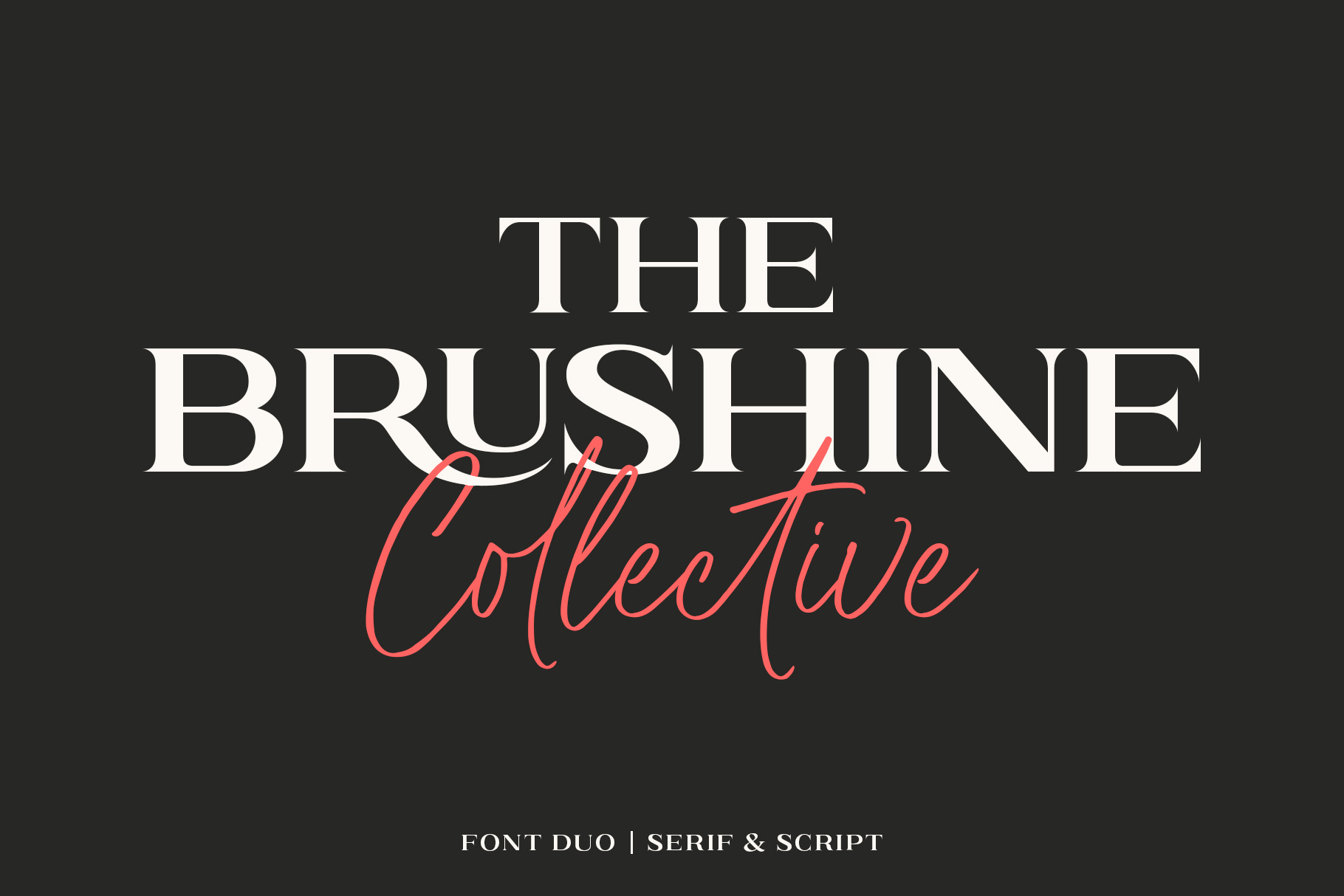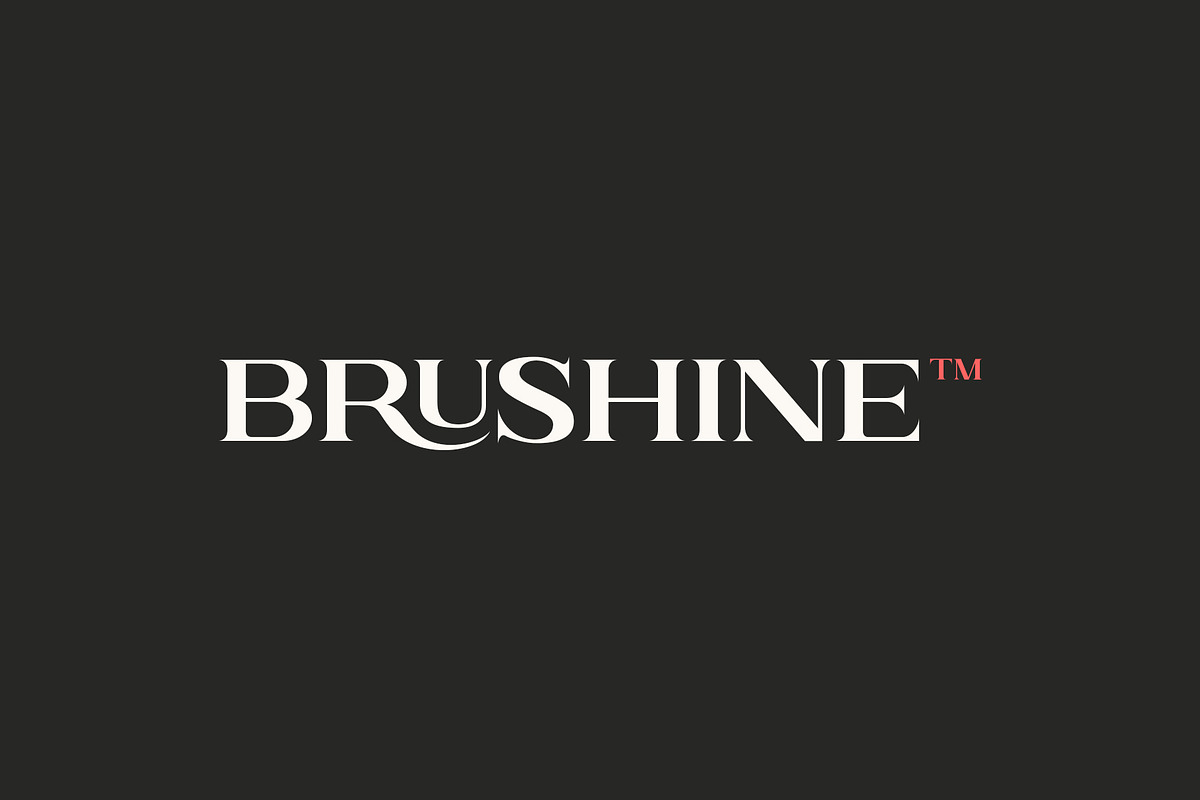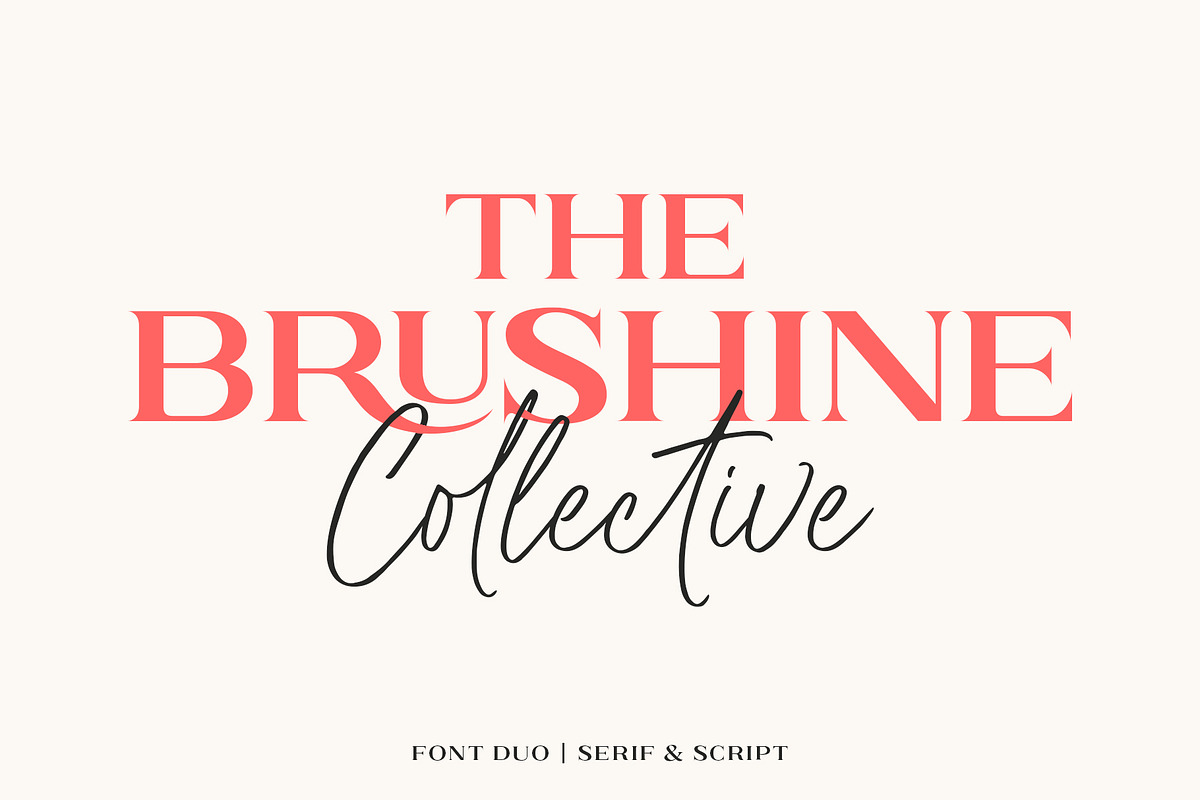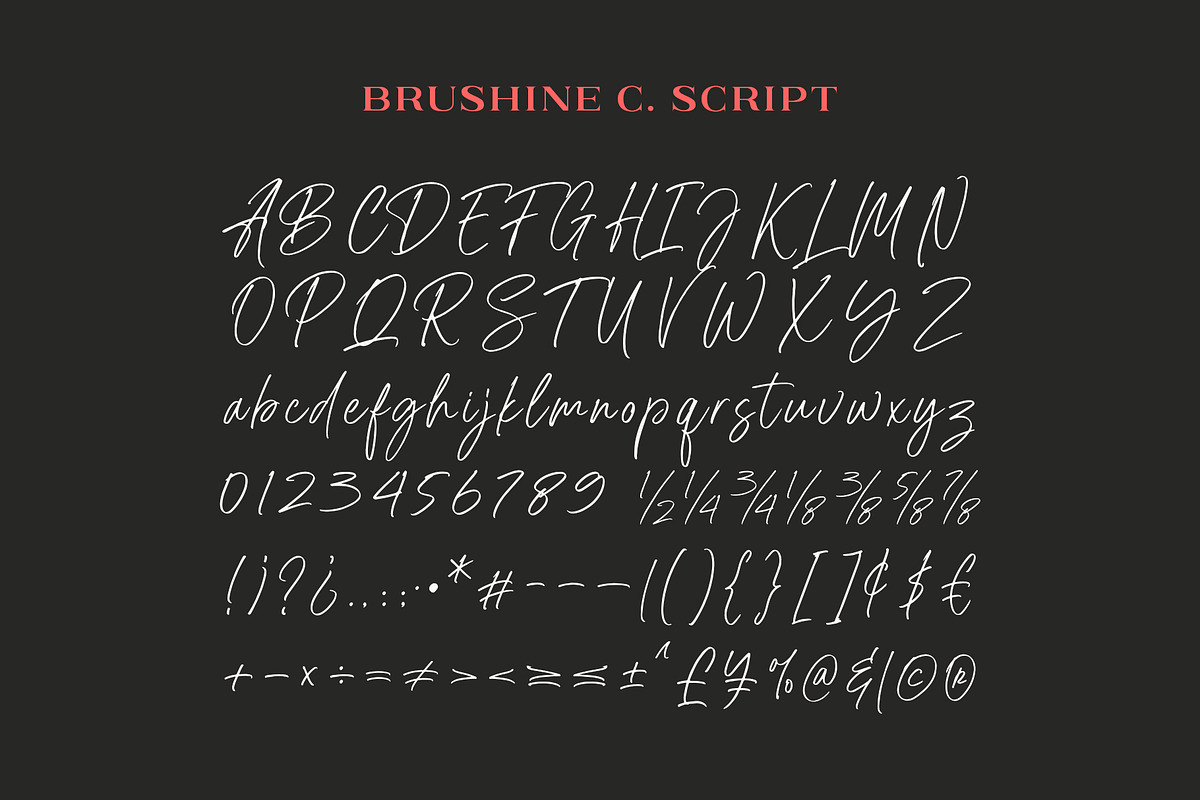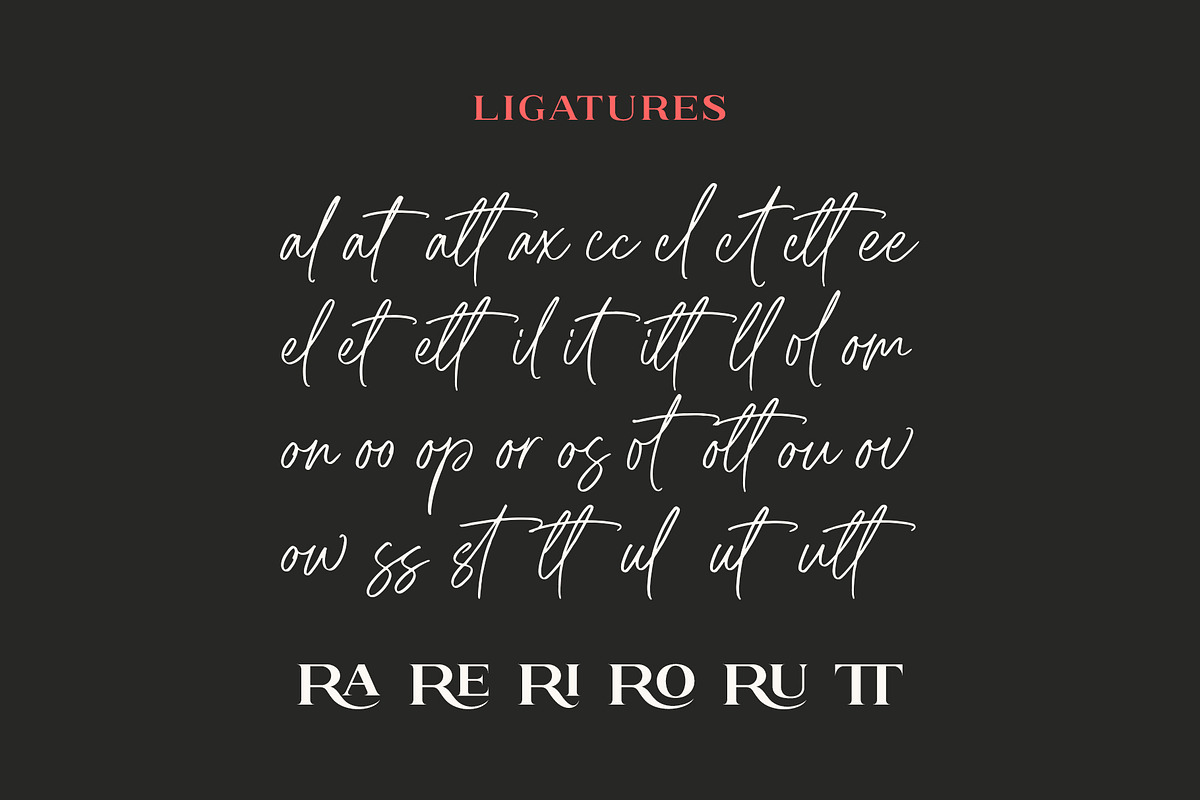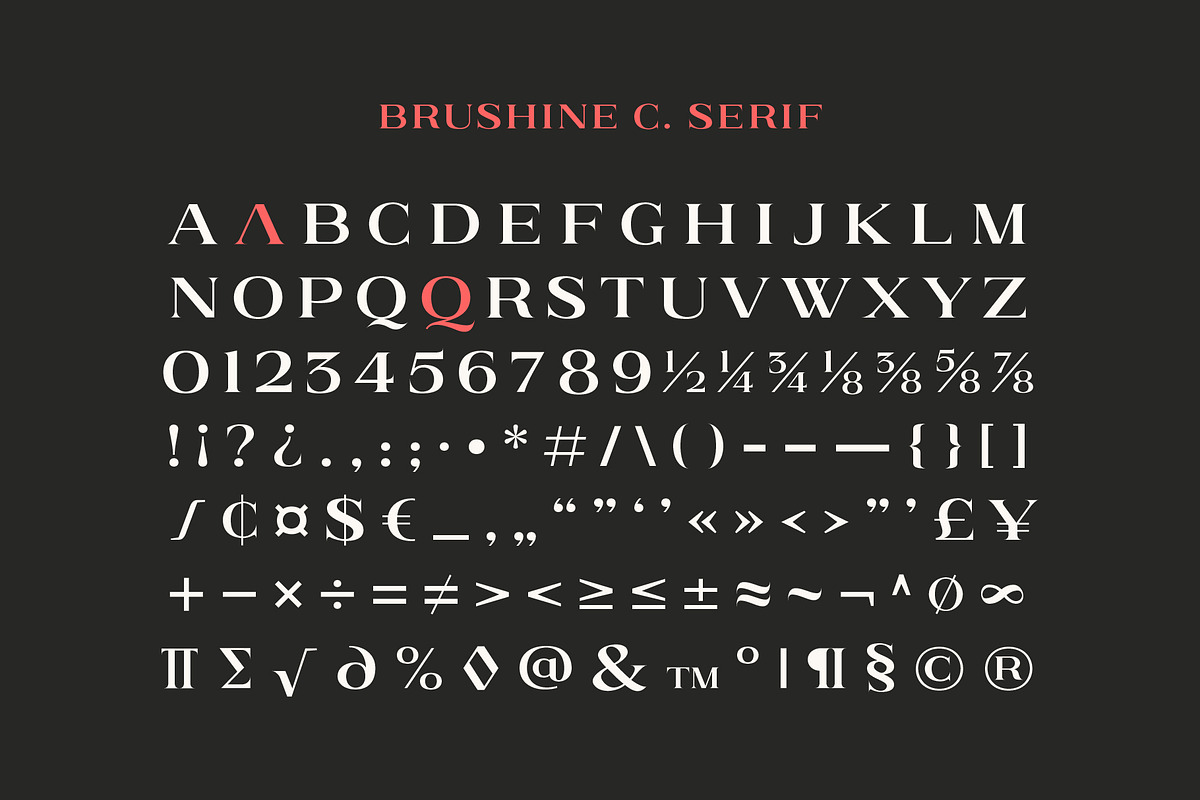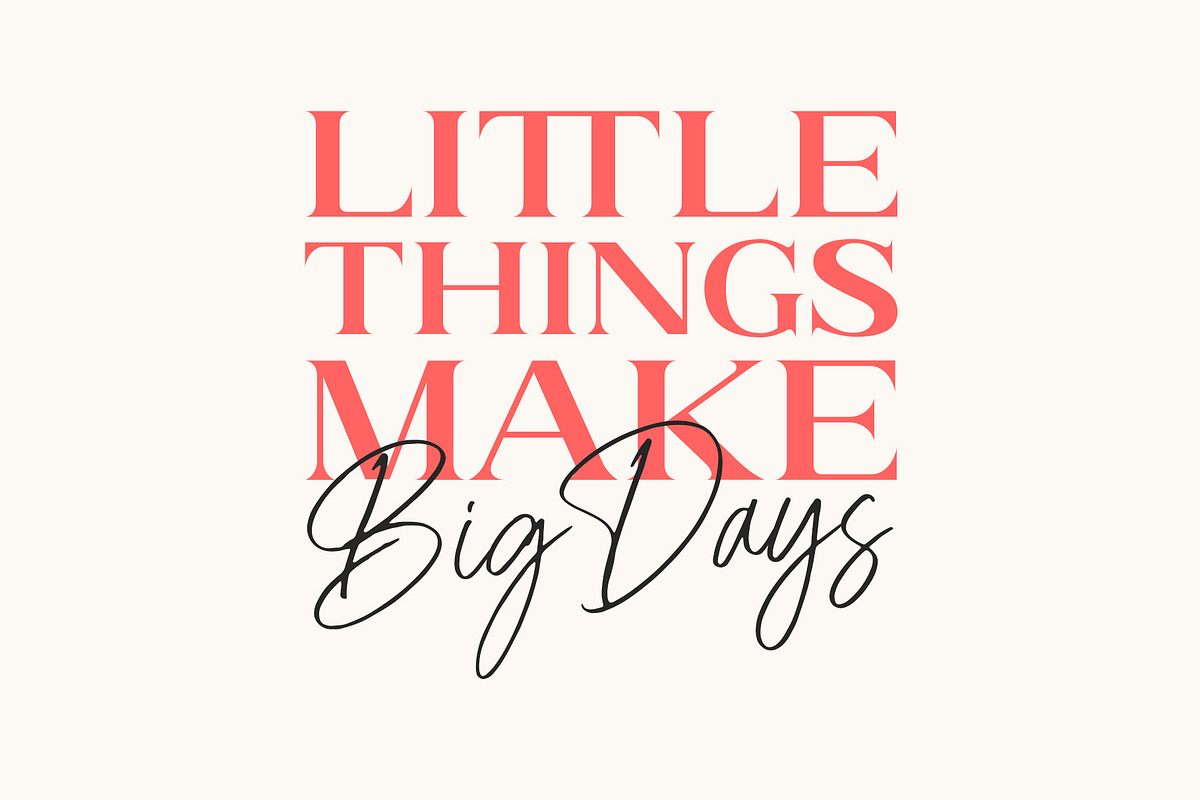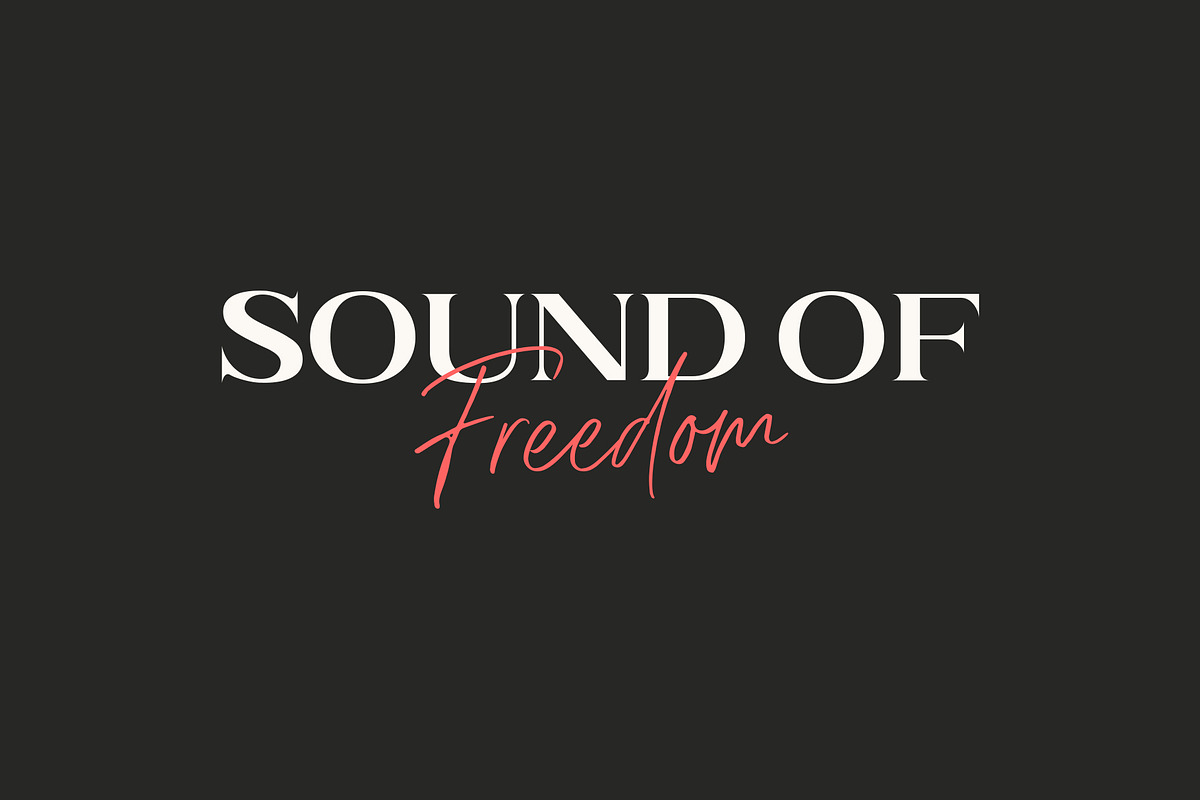
Brushine Collective Font
Brushine Collection is a solid and complementary pair consisting of a serif all caps, with contrasting letter thickness and sharp edges making it more elegant and classy. As well as a handwritten script that look natural because they are made with marker by hand. All together your text will be beautiful, elegant and classy. Suitable for all creative projects, especially on, branding, advertising, product design, social media, and more.
- Number & punctuation symbols
- Stylistic sets
- International characters (Multilingual)